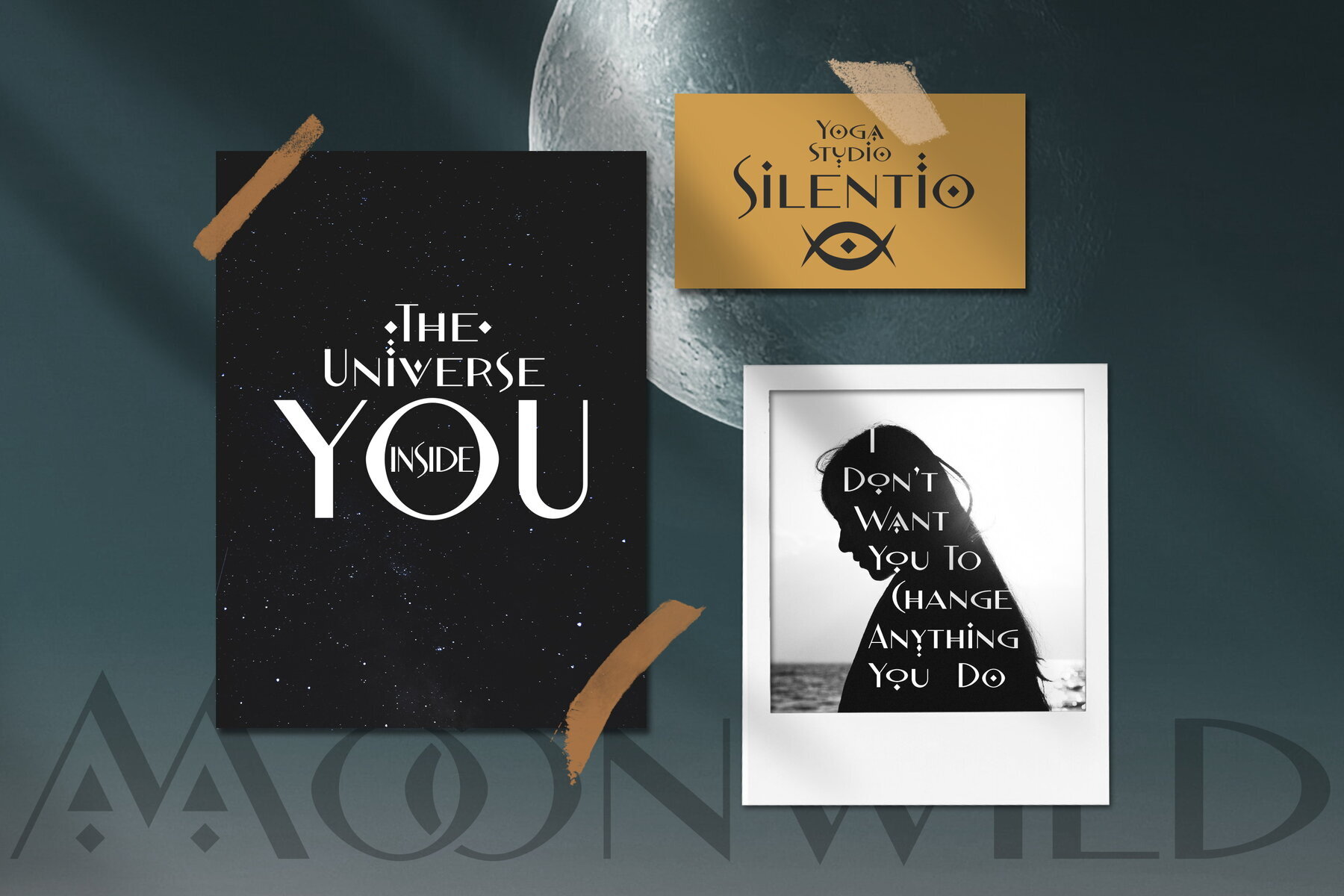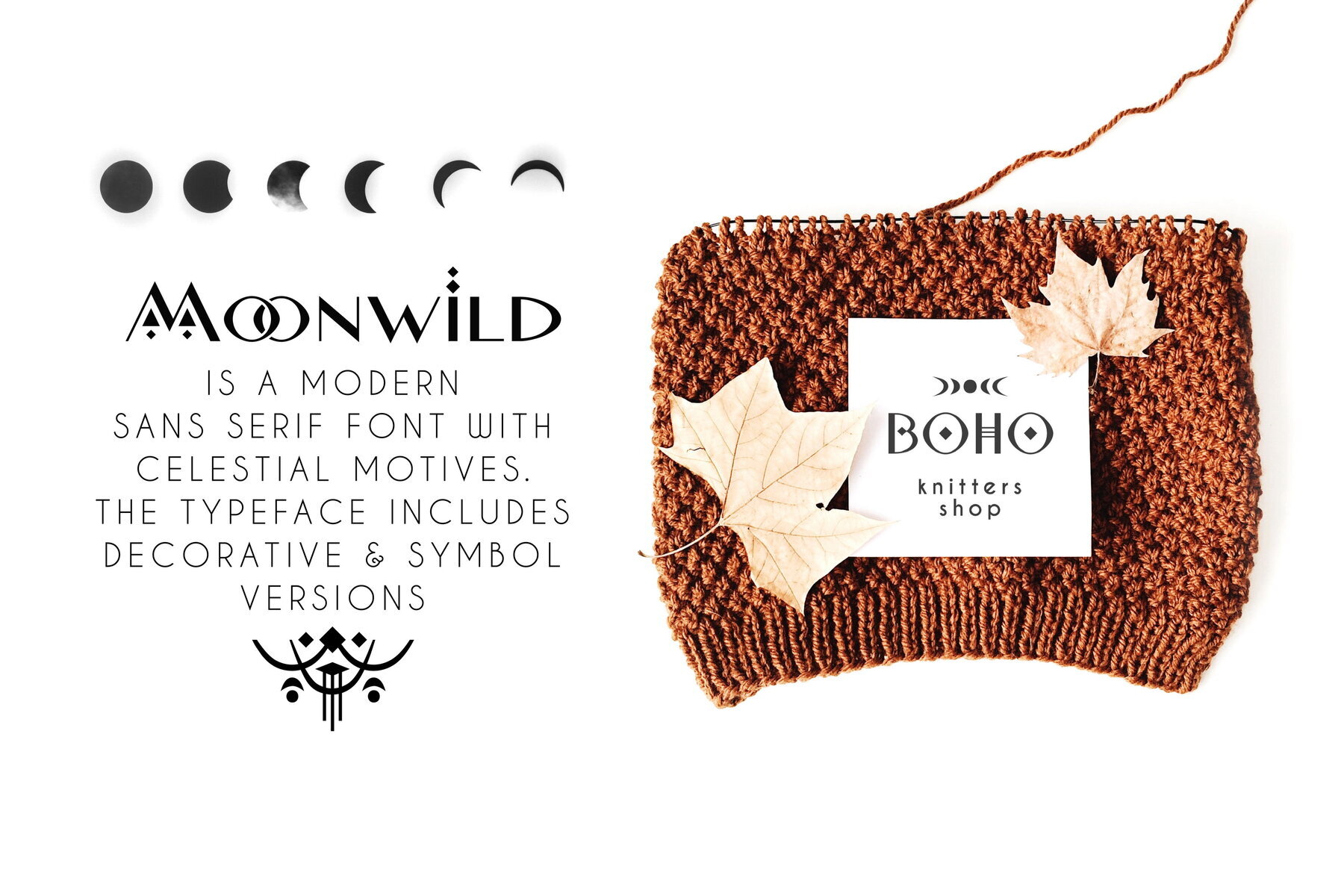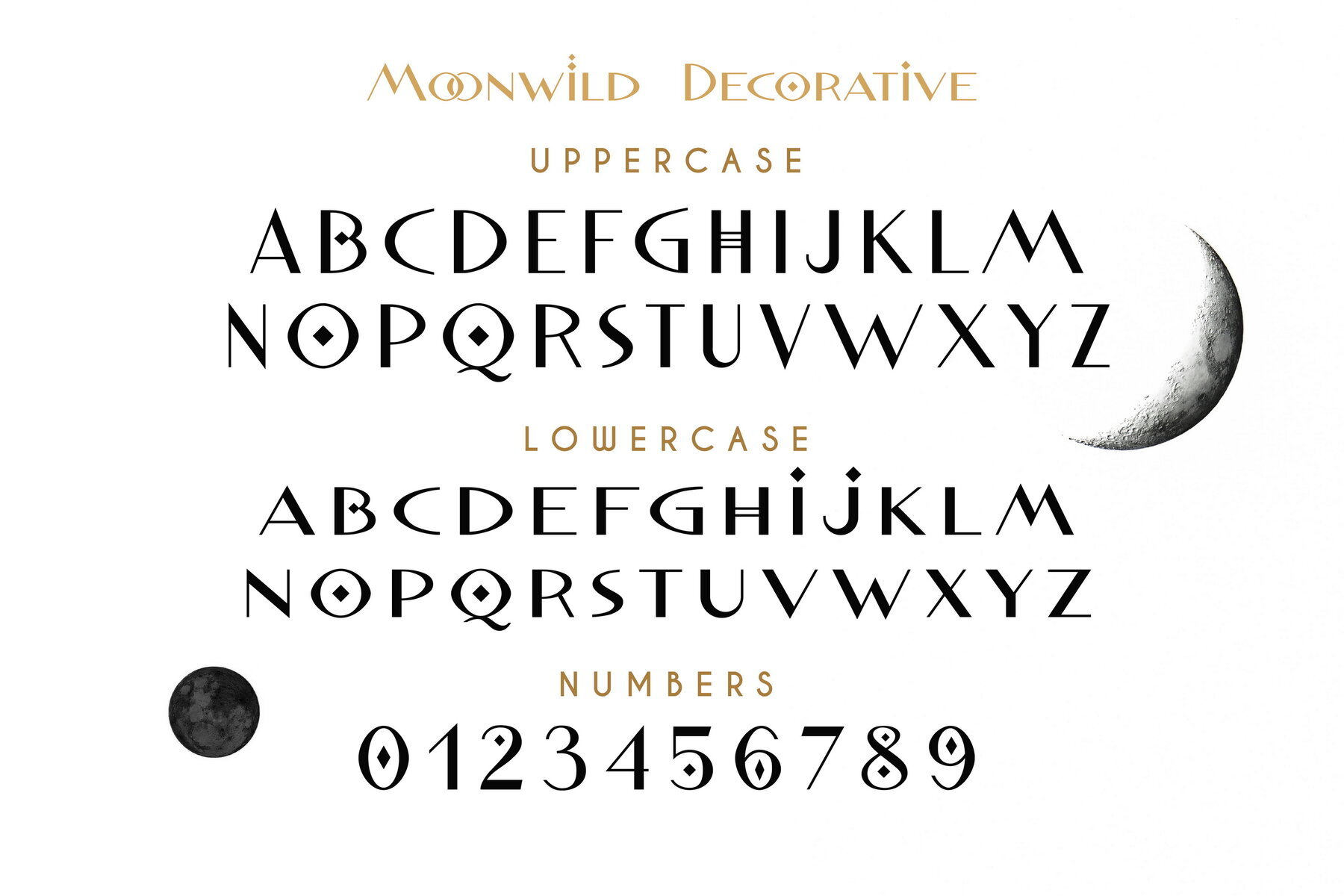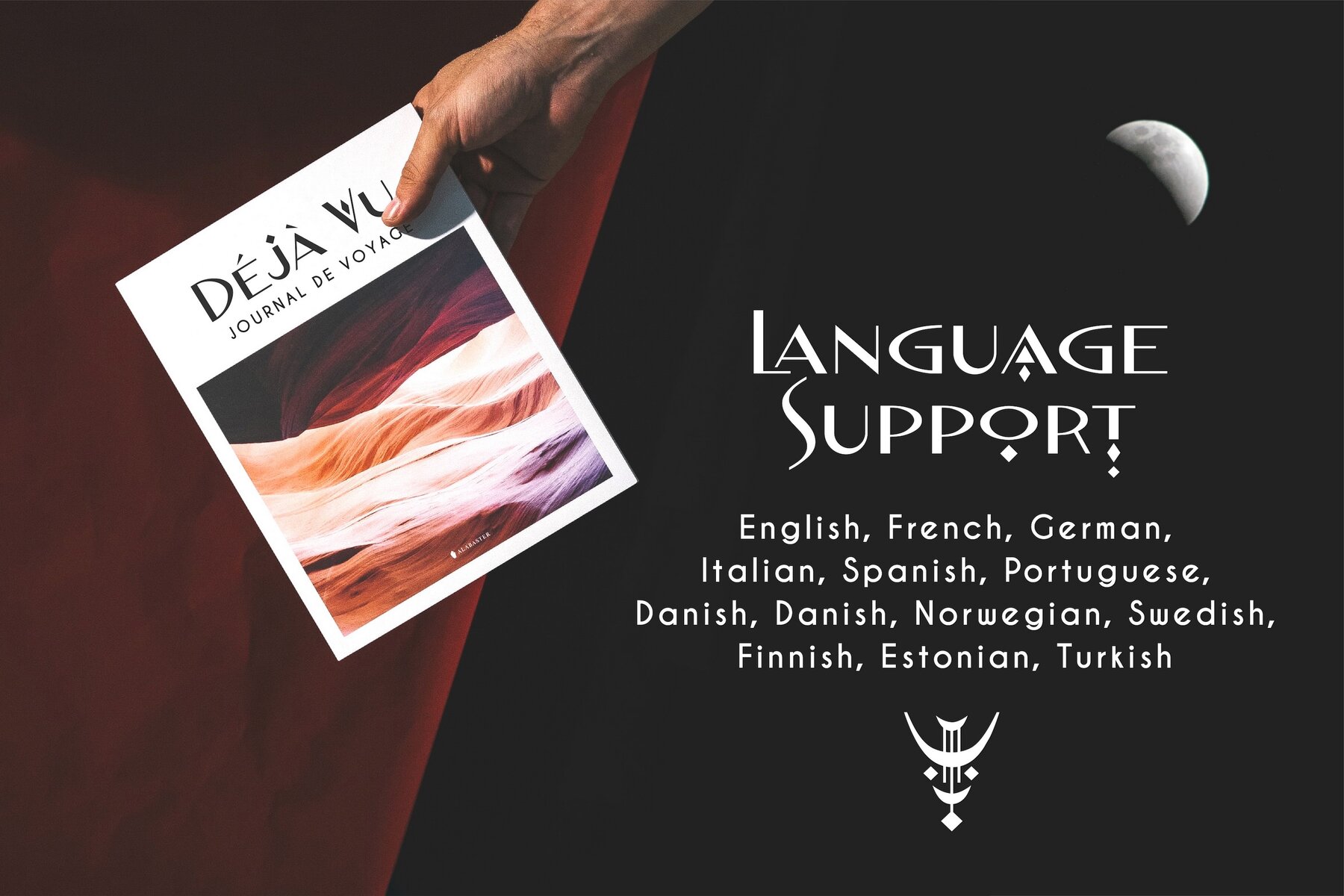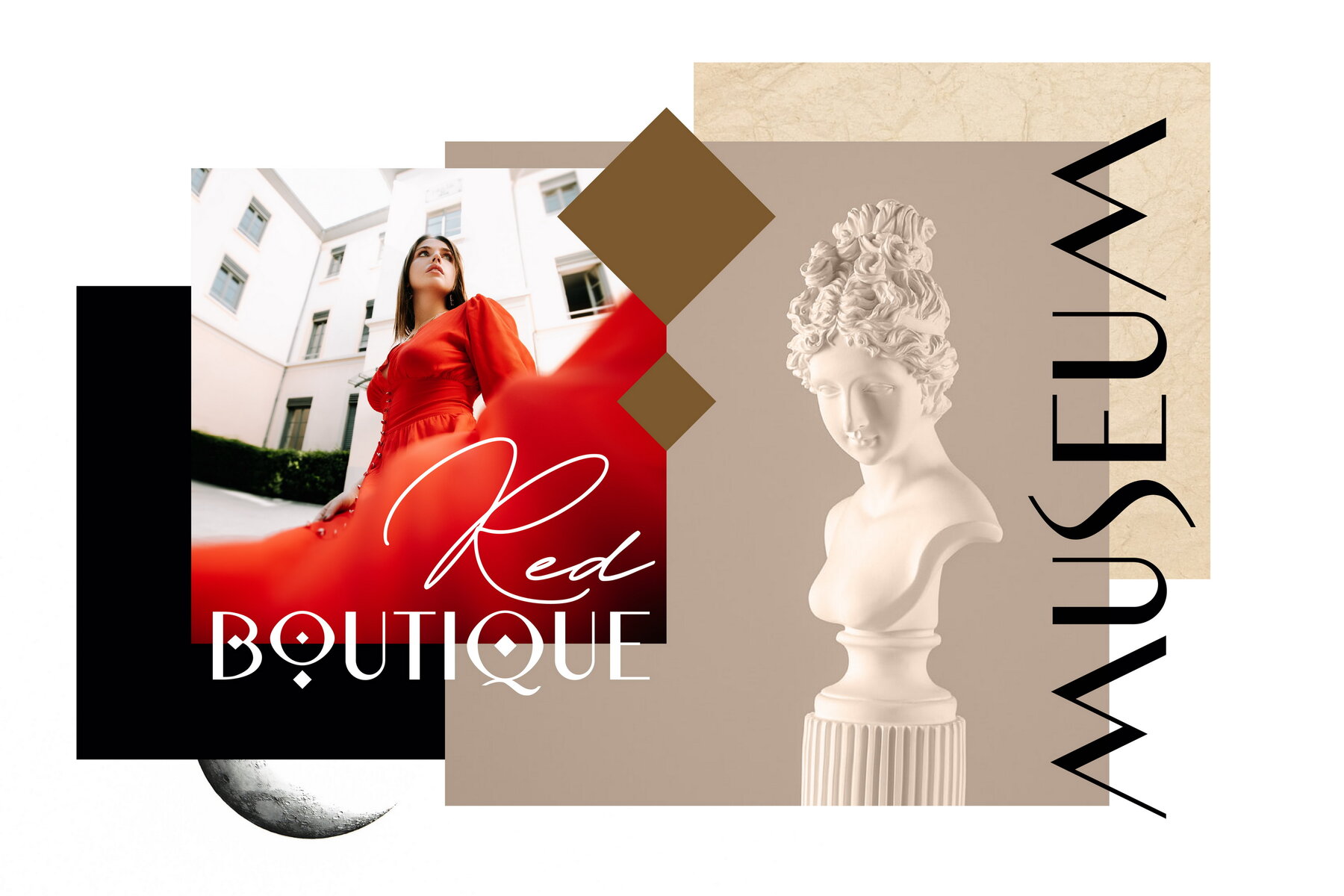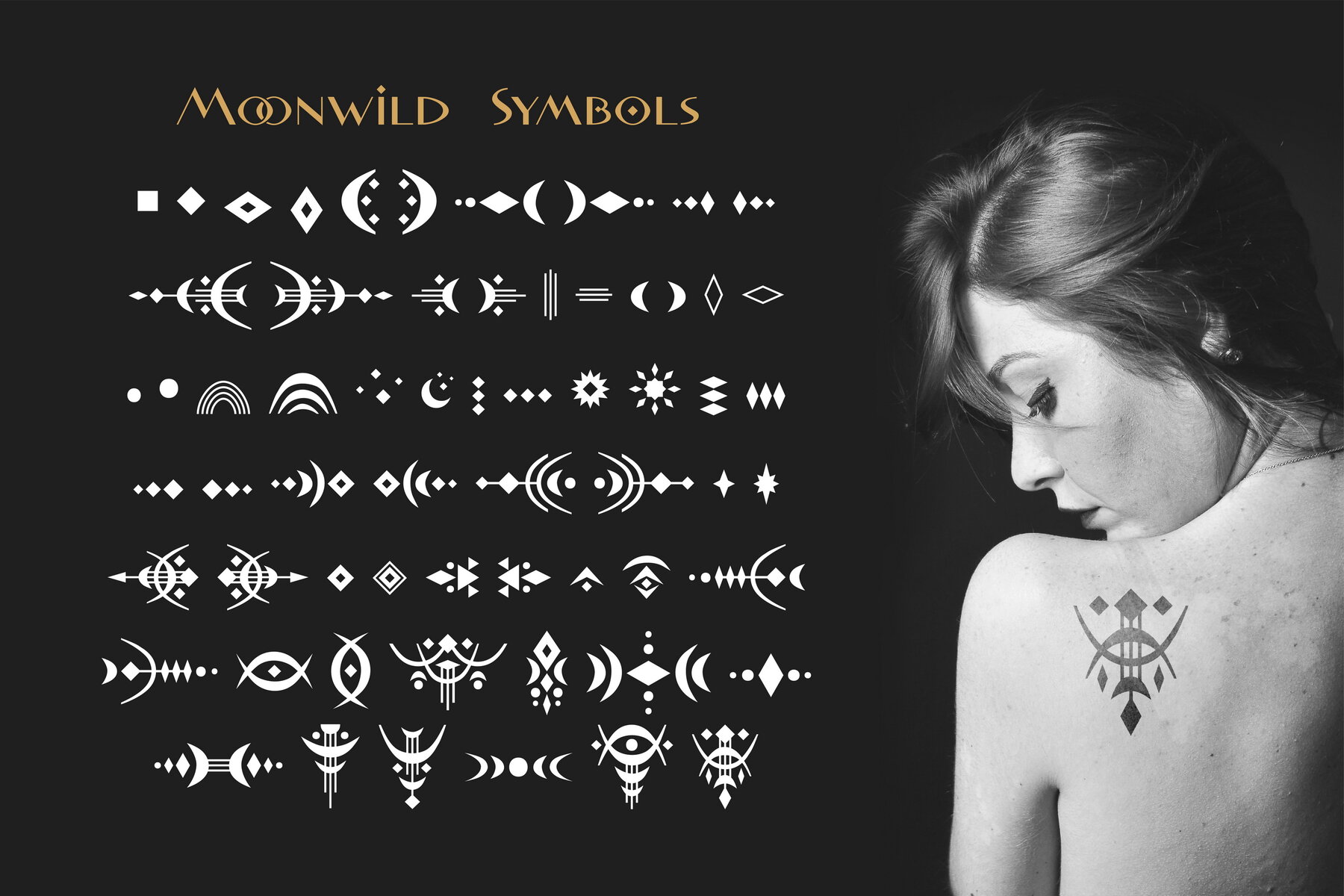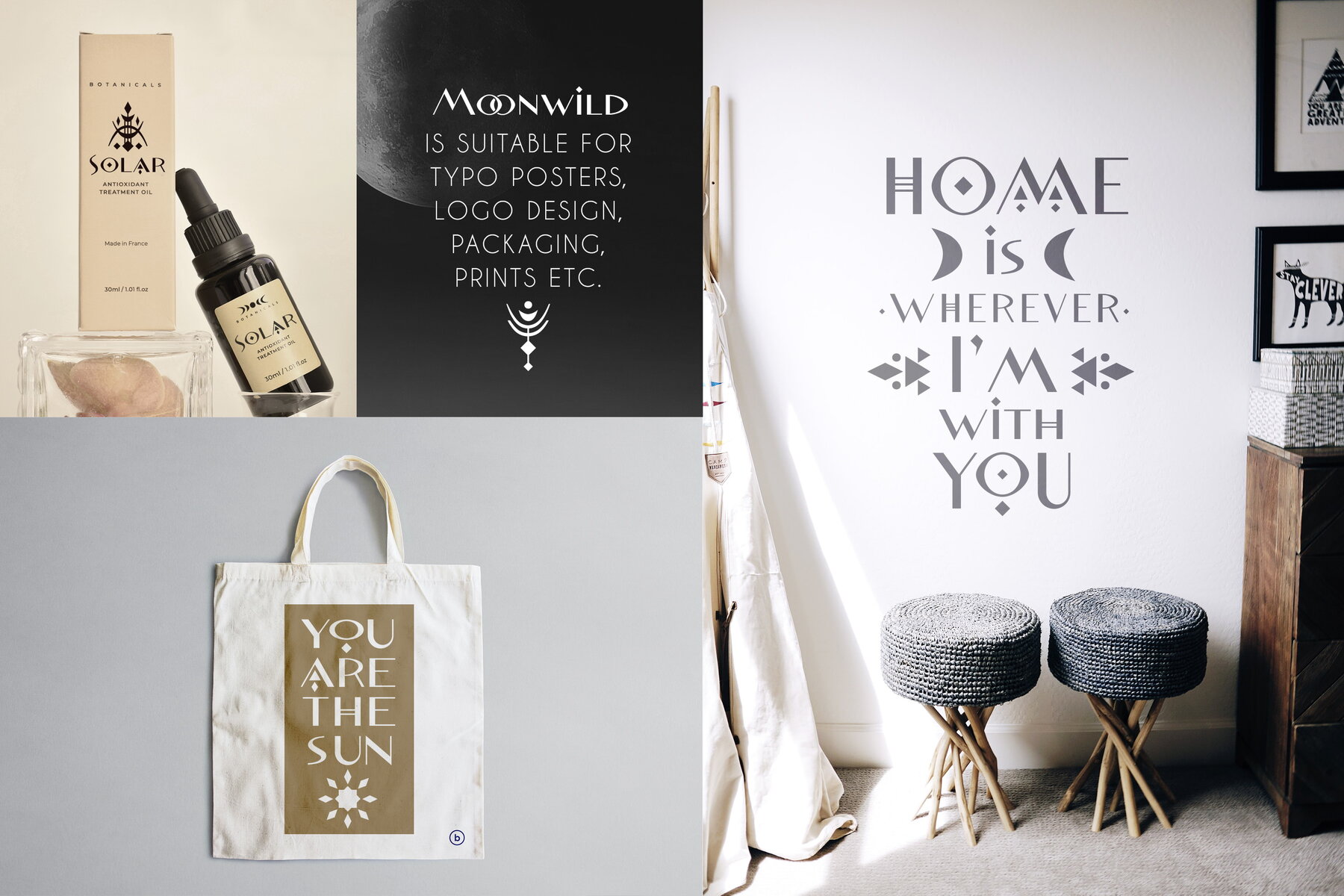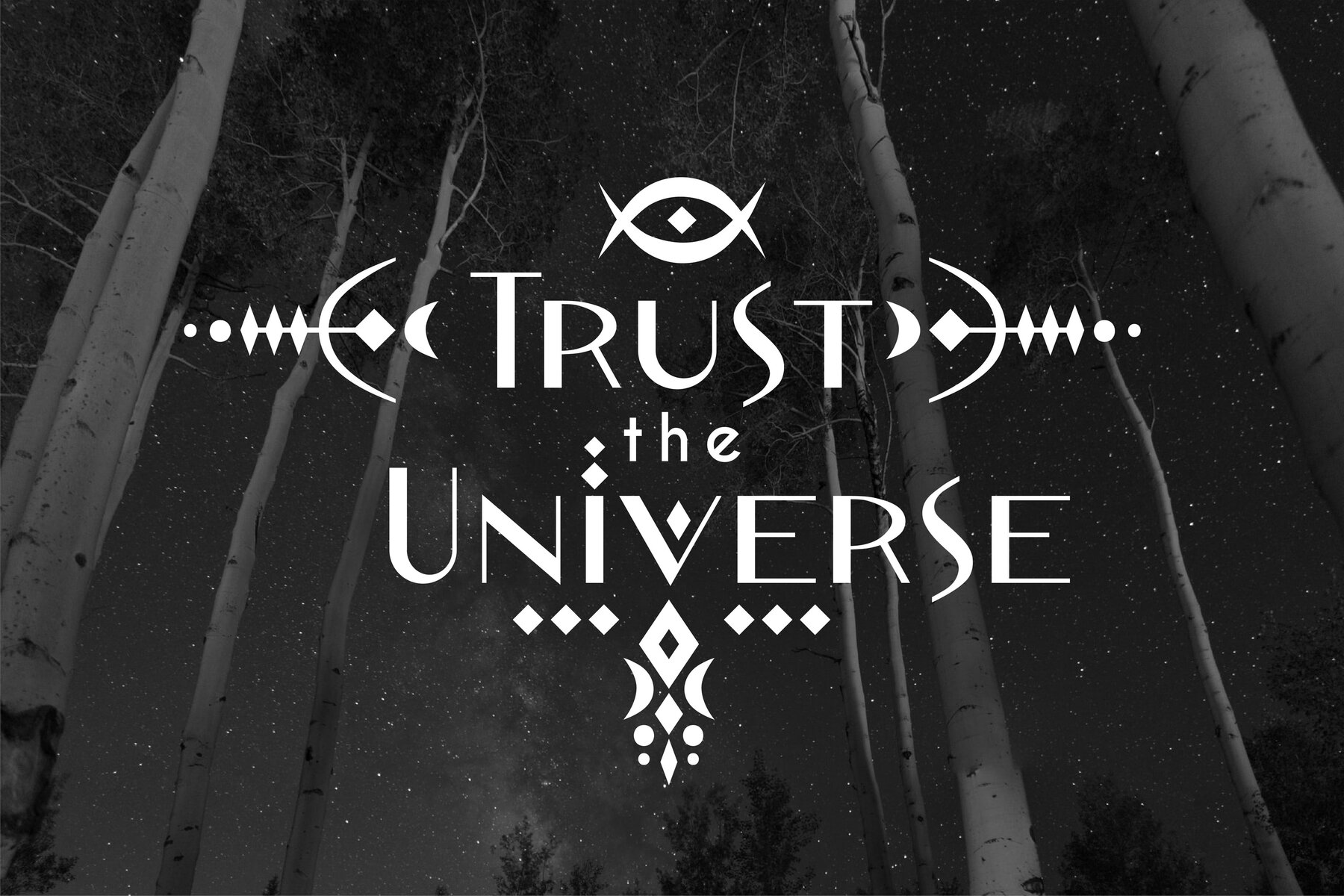
Moonwild Font
Moonwild Decorative
Moonwild Symbol
Moonwild is a modern sans serif font with celestial motives. The typeface includes Decorative and Symbol styles. The font is easy to use in various design programs or without any program. Moonwild is suitable for typographic prints, retro and modern posters, boho art & fashion design. The font works great for craft products branding and packaging (organic cosmetics, jewelry, handmade soap ect.) Also use individual letters and symbols to create logos and monograms. The font has extensive language support, it includes English, French, German, Italian, Spanish, Portuguese, Danish, Norwegian, Swedish, Finnish, Estonian, Turkish. Moonwild includes stylistic alternates for symbols: a, c, i, m, o, q, s, t, u, v, w, y, A, C, M, O, Q, S, T, U, V, W, Y. There are also ligatures: ch, ck, la, La, LA, aa, oo, Ca, ca, OO.